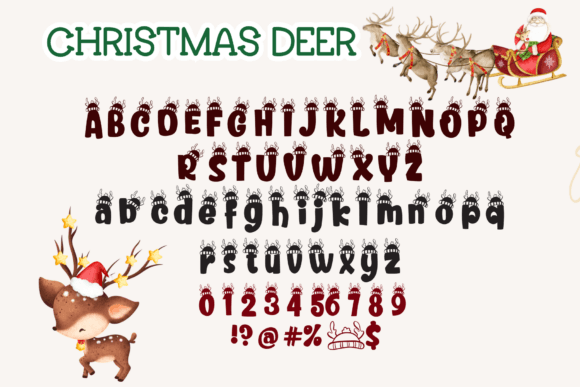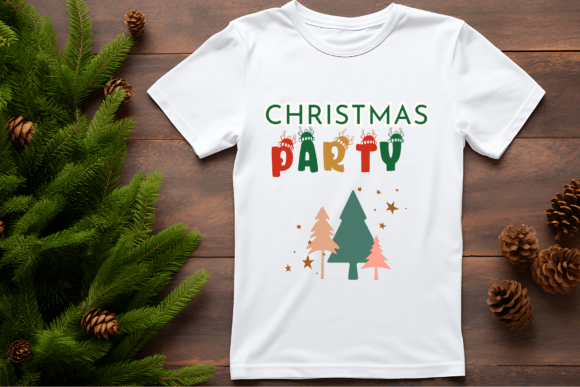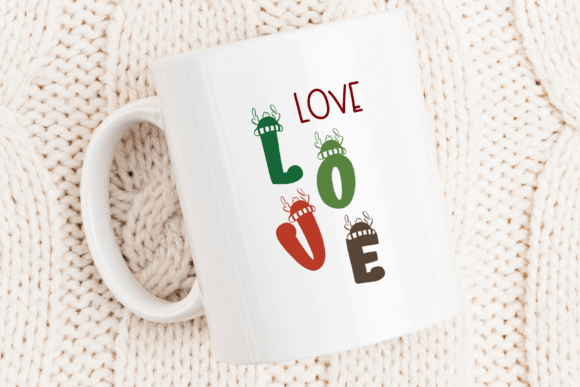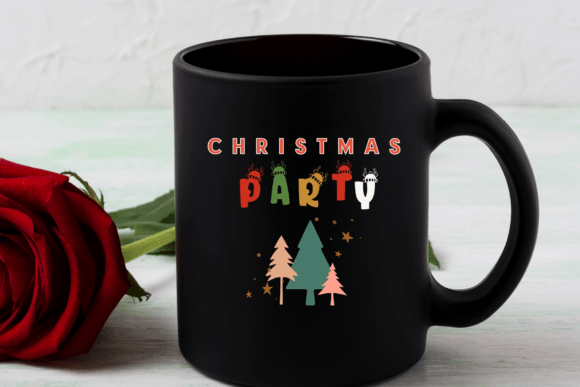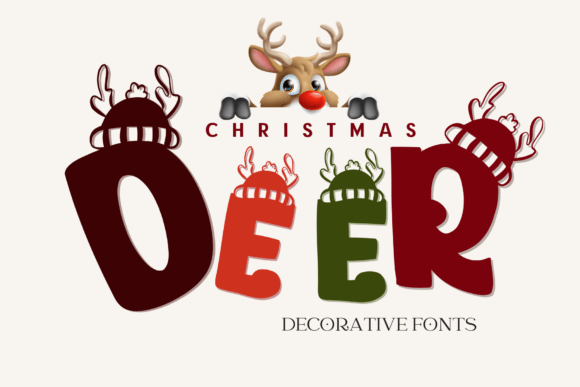
Introducing Christmas Deer Font: A Playful and Festive Typeface for Your Holiday Designs
Are you looking for a font that captures the essence of the holiday season? Look no further than Christmas Deer Font, a lovely decorative typeface that’s perfect for engaging designs aimed at children and those who enjoy a fun, light-hearted aesthetic. In this article, we’ll take a closer look at the features and benefits of Christmas Deer Font, and explore how you can use it to add a touch of festive fun to your designs.
A Playful and Unique Design
Christmas Deer Font is a beautifully designed font that combines playful elements with unique details, making it a standout addition to any design project. The font features a friendly and approachable appearance, with each letter carefully crafted to evoke the magic and wonder of the holiday season. Whether you’re designing holiday cards, gift tags, or festive posters, Christmas Deer Font is sure to add a touch of personality and whimsy to your work.
Ideal for Designs Aimed at Children
One of the key benefits of Christmas Deer Font is its appeal to children. The font’s playful design and friendly appearance make it perfect for designs aimed at kids, such as holiday activity sheets, coloring books, and children’s party invitations. The font’s unique details and whimsical feel will help bring your designs to life and capture the imaginations of children and adults alike.
Perfect for Crafters and Designers
Christmas Deer Font is also a great choice for crafters and designers who enjoy creating festive and fun designs. The font’s versatility and ease of use make it perfect for a wide range of design projects, from handmade cards and gift tags to digital downloads and printable art. Whether you’re a seasoned designer or a crafty hobbyist, Christmas Deer Font is a great addition to your font collection.
Key Features of Christmas Deer Font
- Playful design: Christmas Deer Font features a playful and whimsical design that’s perfect for holiday designs.
- Unique details: The font includes unique details and elements that add a touch of personality to your designs.
- Friendlly appearance: The font has a friendly and approachable appearance that’s perfect for designs aimed at children.
Tips for Using Christmas Deer Font
Here are a few tips for using Christmas Deer Font in your designs:
- Pair with complementary fonts: Christmas Deer Font pairs well with other festive fonts, such as bold and sans-serif fonts.
- Use for headlines and titles: The font’s playful design makes it perfect for headlines and titles, adding a touch of personality to your designs.
- Add festive colors: Use festive colors such as red, green, and gold to add a holiday touch to your designs.
Christmas Deer Font is a lovely decorative font that’s perfect for adding a touch of festive fun to your designs. Its playful design, unique details, and friendly appearance make it ideal for engaging designs aimed at children and those who enjoy a fun, light-hearted aesthetic. Whether you’re a designer, crafter, or hobbyist, Christmas Deer Font is a great addition to your font collection. So why not give it a try and see how it can add some holiday magic to your designs?